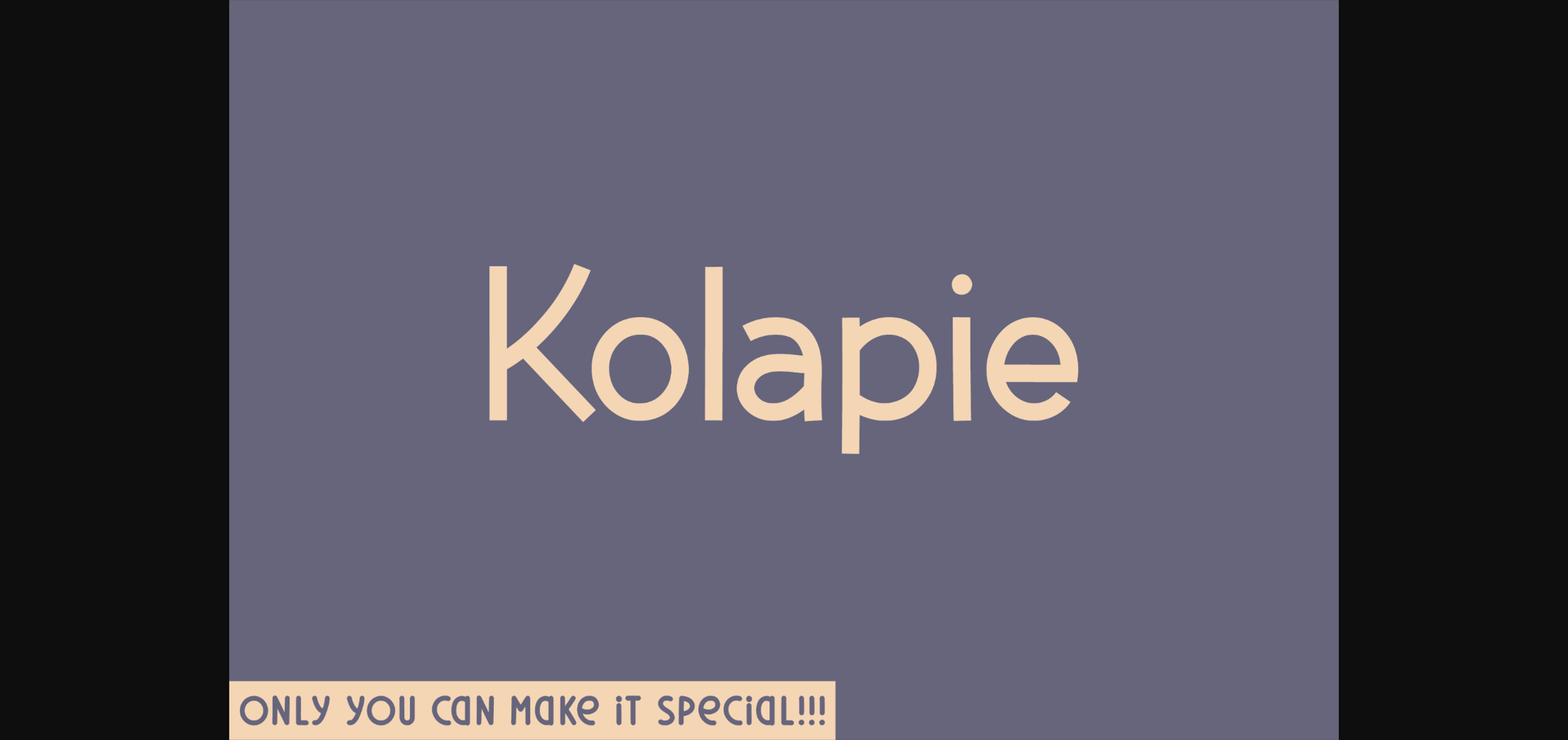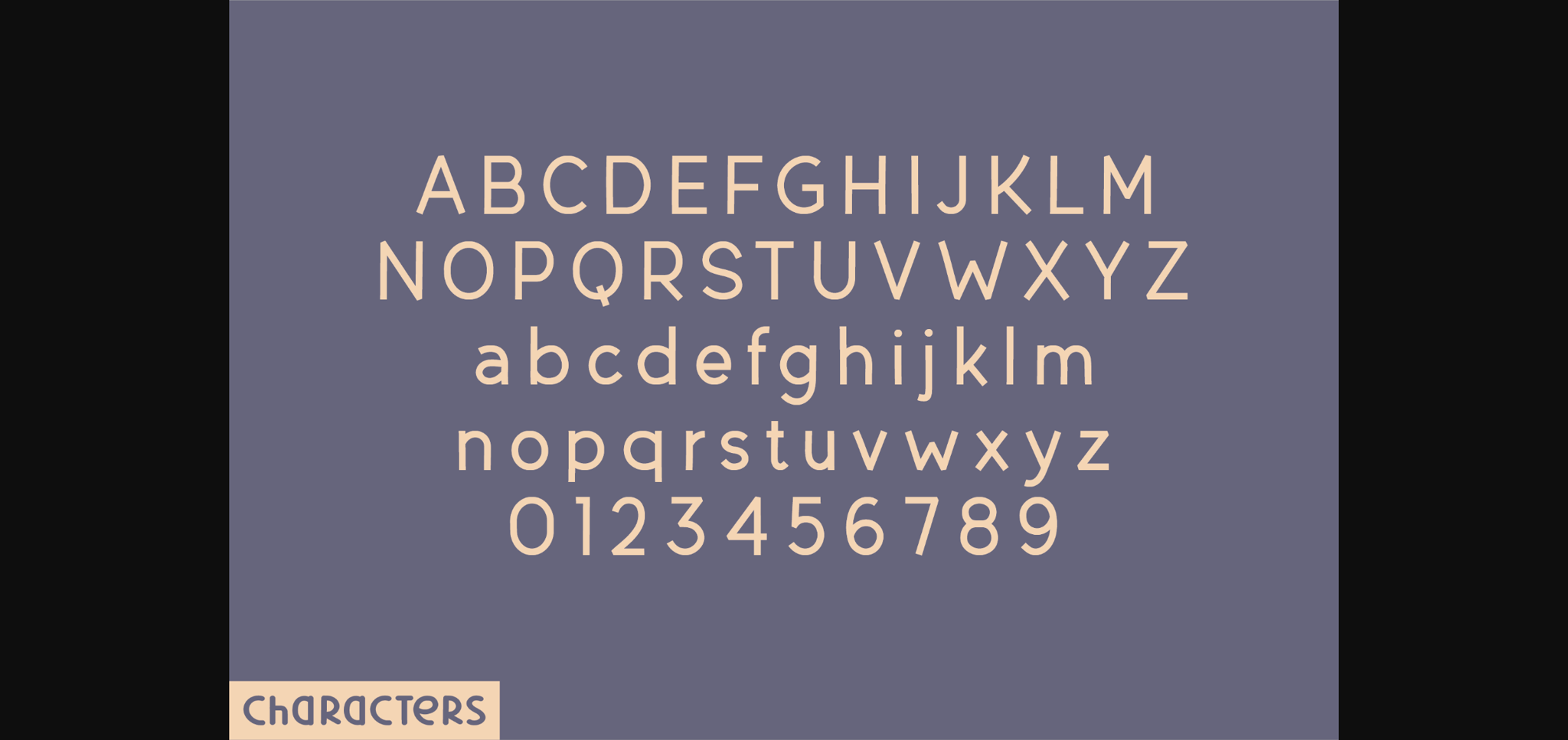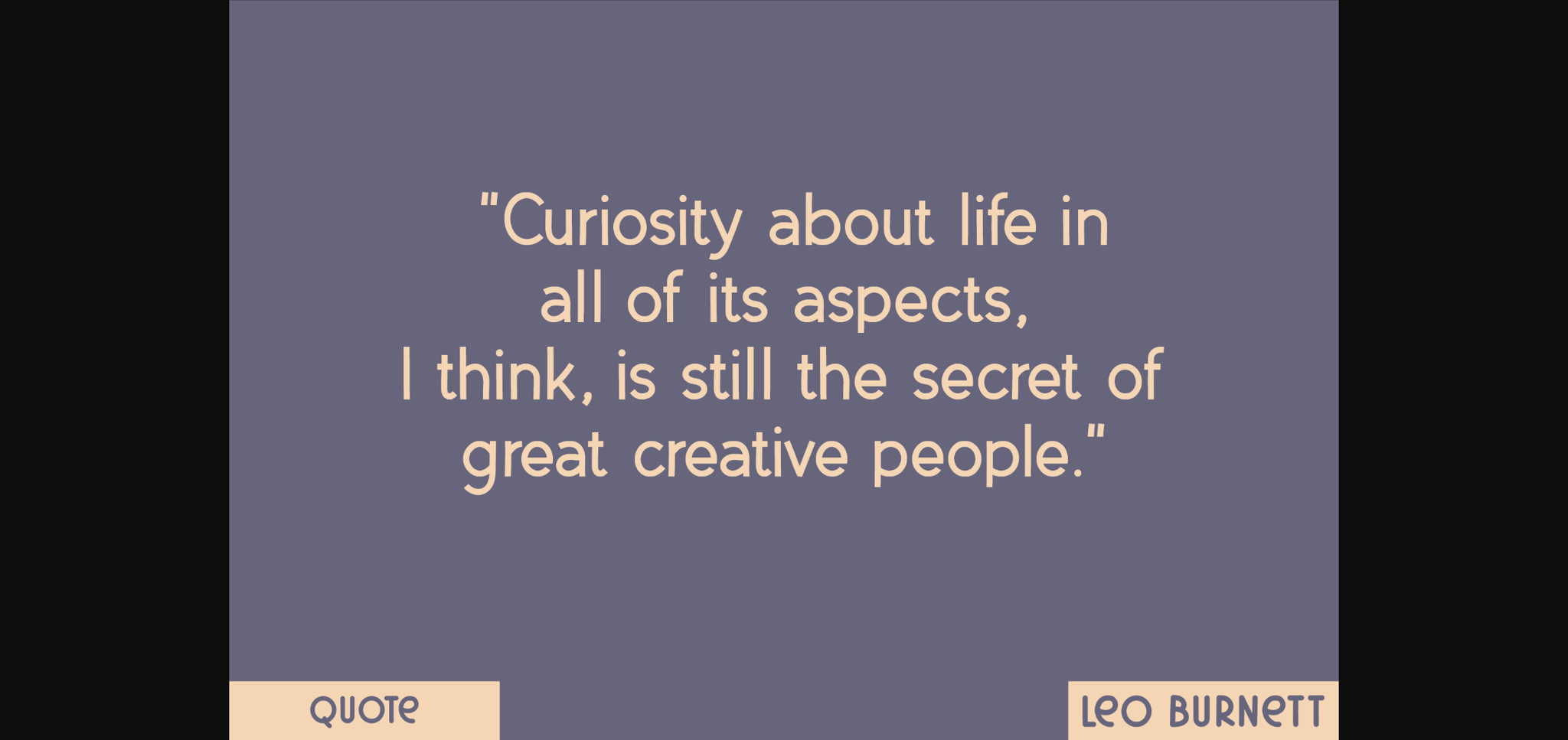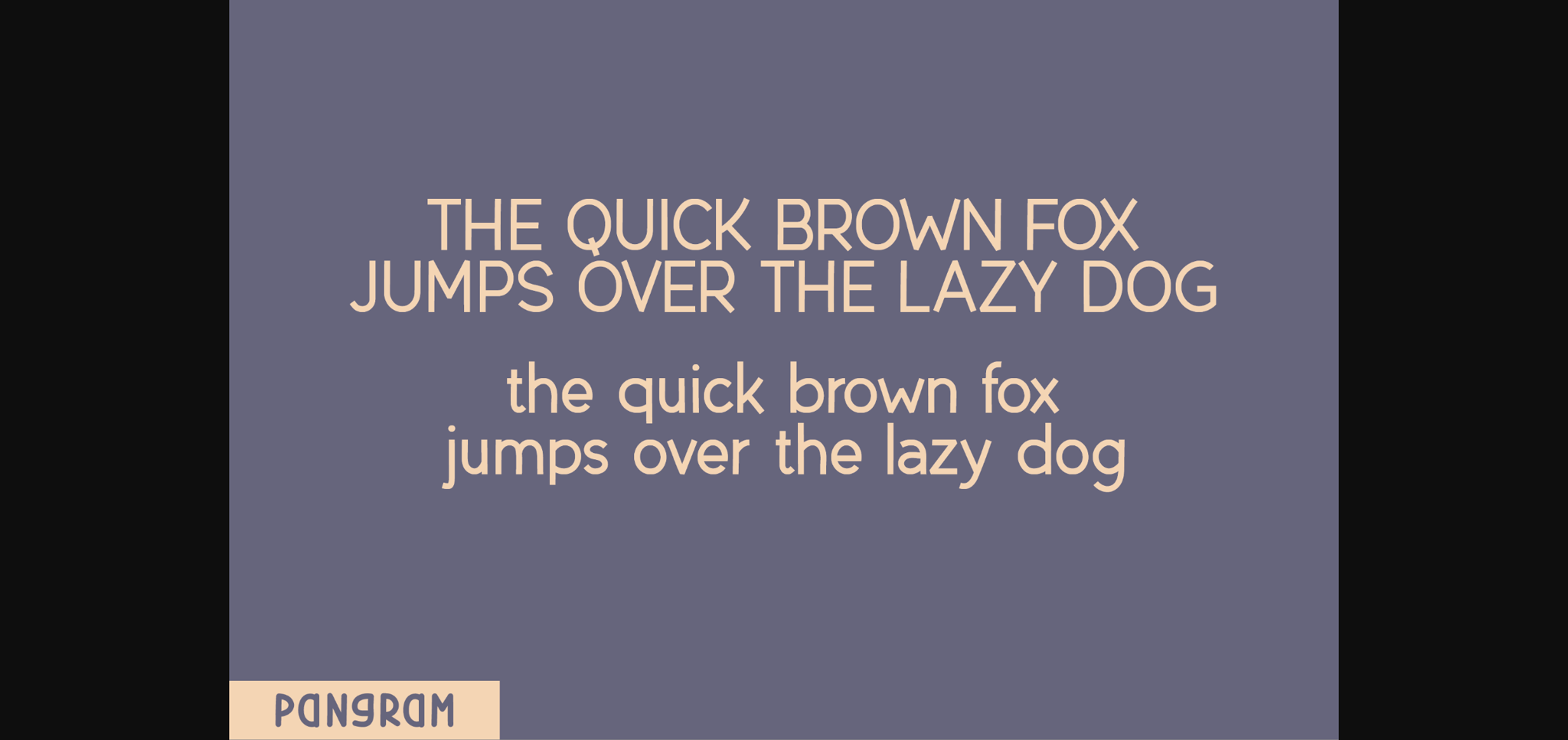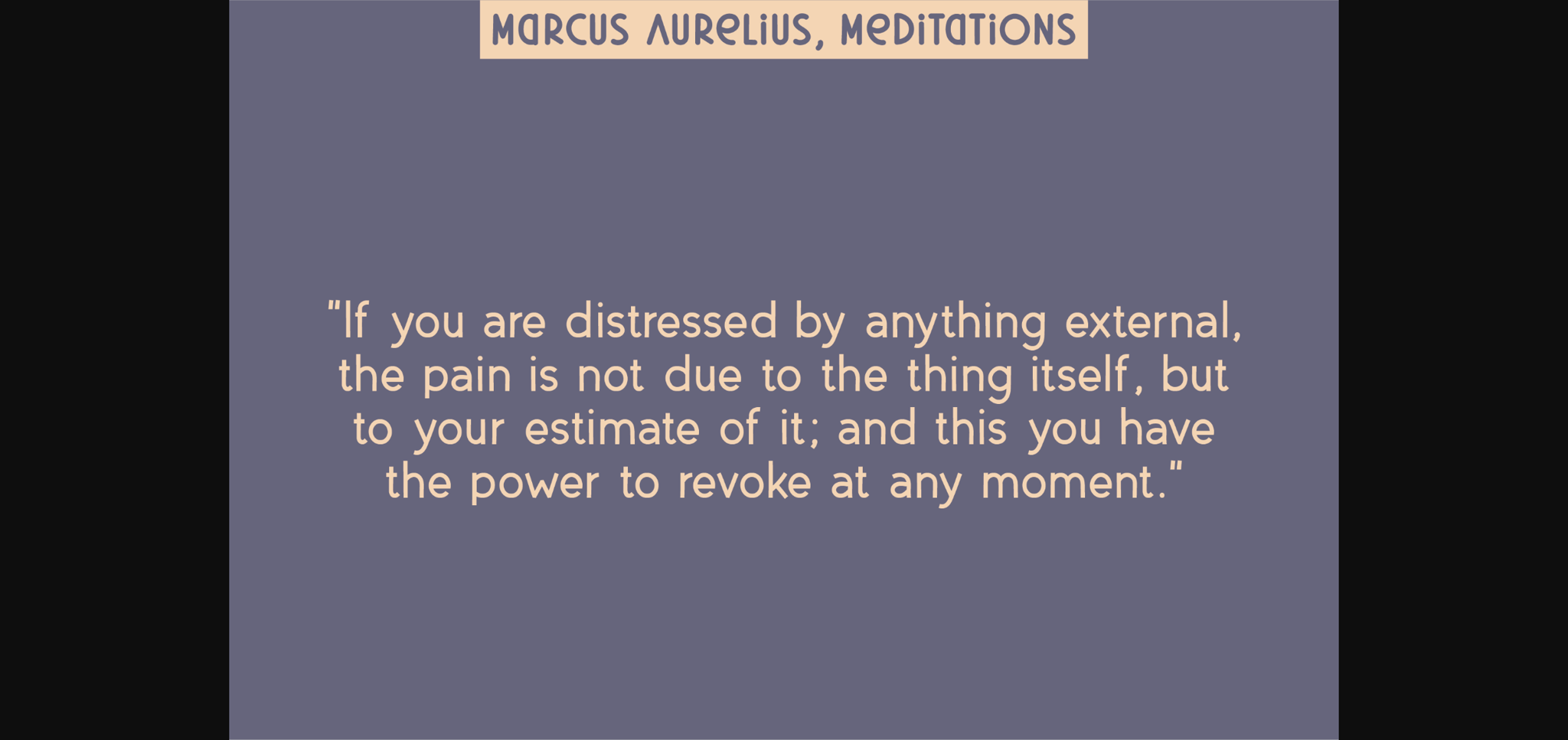
HomeSans Serif FontsKolapie Font Sans Serif Fonts Kolapie Font FacebookXPinterestWhatsApp 1 of 7 ... Kolapie Font Poster 2... Kolapie Font Poster 3... Kolapie Font Poster 4... Kolapie Font Poster 5... Kolapie Font Poster 6... Kolapie Font Poster 7... About Kolapie Font Kolapie is an elegant and modern sans serif font. This minimalist and clean vibe can easily apply to your favorite designs such as book covers, magazines, social media posts, invitations, and so much more! DOWNLOAD NOW People also explored Beach Doodles Dingbat Font Pageberry Font Manchester Sans Font Pine Decorative Font Smalline Font Monitha Font Love Line Font Almonds Script Teen Poem Font 367 0 TagsKolapieKolapie Font Previous articleBest Ever FontNext articleProsciutto Font LEAVE A REPLY Cancel reply Comment: Please enter your comment! Name:* Please enter your name here Email:* You have entered an incorrect email address! Please enter your email address here Website: Save my name, email, and website in this browser for the next time I comment. Personal Use Free Cataclysmo Personal Use Free Read more about this font Tomatoes Personal Use Free Read more about this font Konexio Personal Use Free Read more about this font Harshita Personal Use Free Read more about this font BLOG Using Fonts in Digital Marketing: Tips to Strengthen Your Brand Identity In the realm of digital marketing, every visual element plays a crucial role in shaping a brand's identity, and fonts are no exception. The... Top 7 Google Fonts Alternatives for Faster and Privacy-Friendly Web Design (2025) Top 10 Handwritten Fonts That Elevate Your Designs Fonts That Capture the Spirit of New York City